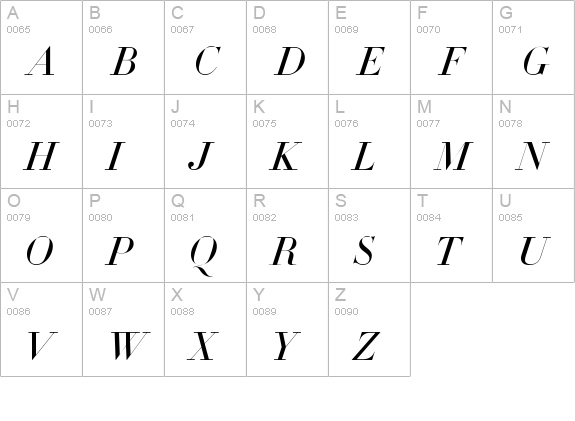
Didot-HTF-L42-Light-Ital is a refined, elegant variant in the Didot typeface family \xE2\x80\x94 well suited to elegant body text, refined sub-headings, and luxury branding.
The Didot-HTF-L42-Light-Ital font is a graceful and elegant typeface that exudes sophistication and refinement. Its slender, delicate letterforms convey a sense of luxury and timeless beauty, making it a perfect choice for projects that require a touch of class. The italic style of this font adds a touch of flair and sophistication, making it ideal for use in elegant designs and high-end branding. Best of all, this exquisite font is available for free download at FontsMarket.com. Whether you're working on a chic wedding invitation, a luxurious logo, or a high-end magazine spread, the Didot-HTF-L42-Light-Ital font will add a touch of elegance and sophistication to your project. Download it now and elevate your designs to new heights of style and sophistication.